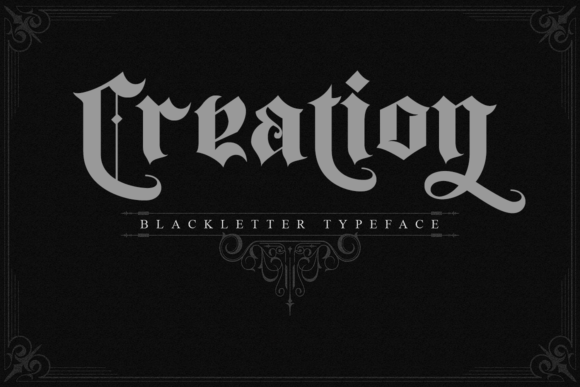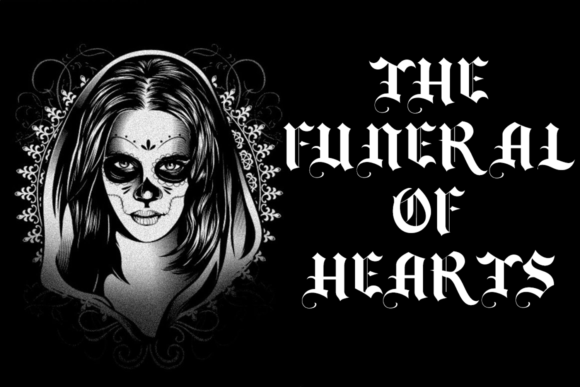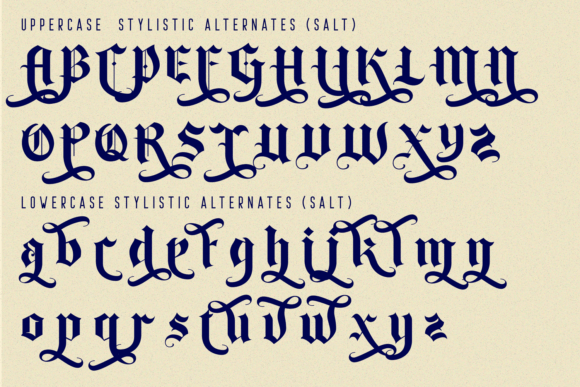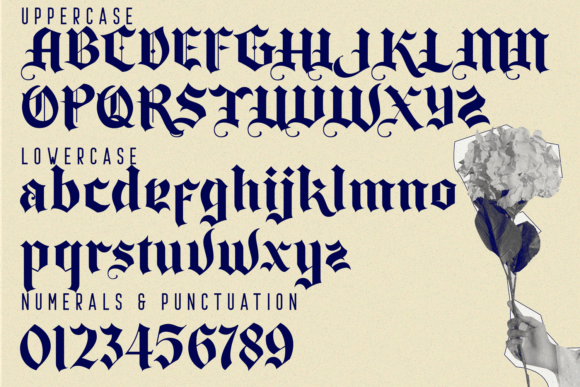
Introduction to Aubange Belgium Font
Have you ever stumbled upon the perfect font that elevates your design to the next level? For many designers, that ‘aha’ moment is when they discover a high-quality font that brings their creative vision to life. For those in search of a powerful and striking design resource, look no further than the Aubange Belgium Font.
This modern reinterpretation of the classic blackletter font is a game-changer for designers seeking to add a strong, prominent touch to their projects. With its bold and eye-catching character, the Aubange Belgium Font is an excellent choice for any creative project requiring a statement-making font. Whether you’re working on a logo, poster, or brochure, this versatile font is sure to leave a lasting impression.
Aubange Belgium Font
- Designed with a unique aesthetic, perfect for modern design projects
Honest Review: Aubange Belgium Font
I recently stumbled upon the Aubange Belgium Font while searching for a design resource for a creative project. I was excited to give it a try and see if it would meet my expectations.
First impressions are everything, and the Aubange Belgium Font certainly delivers. The font has a high quality, modern design that would be perfect for any project that requires a clean and sophisticated look. The font is also available for free download, which is a huge bonus.
What works well: ✨ The font has a transparent background, making it easy to use and layer with other design elements. The font is also highly customizable, allowing me to adjust the size, color, and style to fit my project’s needs.
What could be improved: ⚠️ The font only comes in a limited number of styles, which may limit its versatility for some projects.
Overall, I’m impressed with the Aubange Belgium Font. It’s a great addition to any designer’s toolkit, and I would definitely recommend it to anyone looking for a high-quality, free font for their next creative project.
- High quality design
- Customizable
Aubange Belgium Font
The Aubange Belgium Font is a versatile and high-quality design resource that can elevate any creative project. With its unique aesthetic, this font is perfect for designers looking for a distinctive touch.
Tips for Getting the Most Out of the Aubange Belgium Font
For the best results, use the Aubange Belgium Font with a transparent background to create a clean and modern look. Experiment with different font sizes and colors to find the perfect combination for your project.
The Aubange Belgium Font is perfect for a variety of creative projects, including branding, marketing materials, and social media graphics. Its unique aesthetic makes it ideal for designers looking to add a touch of sophistication and style to their work.